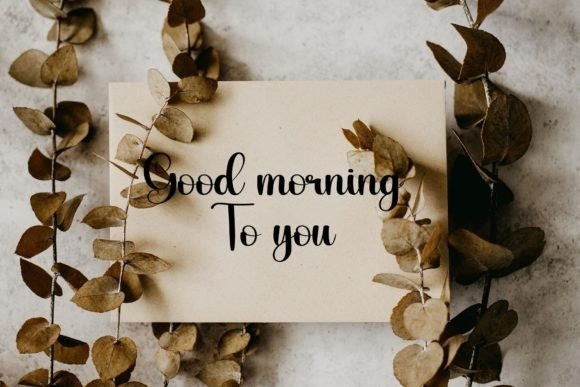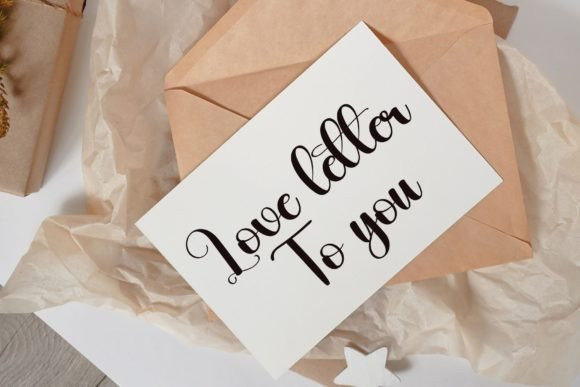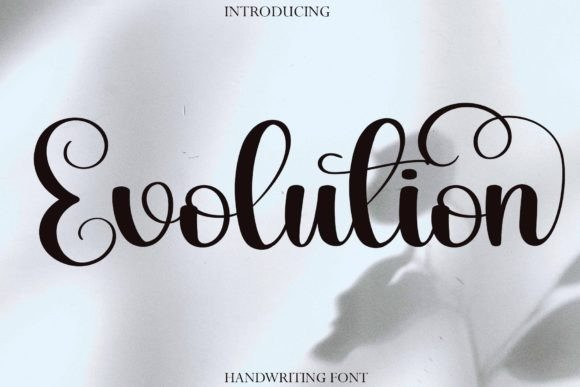
Evolution Script Font
Evolution Script Font is a sweet and thin serif font. Featuring characters that dance along the baseline, this font will add a luxury spark to any design project you wish to create!